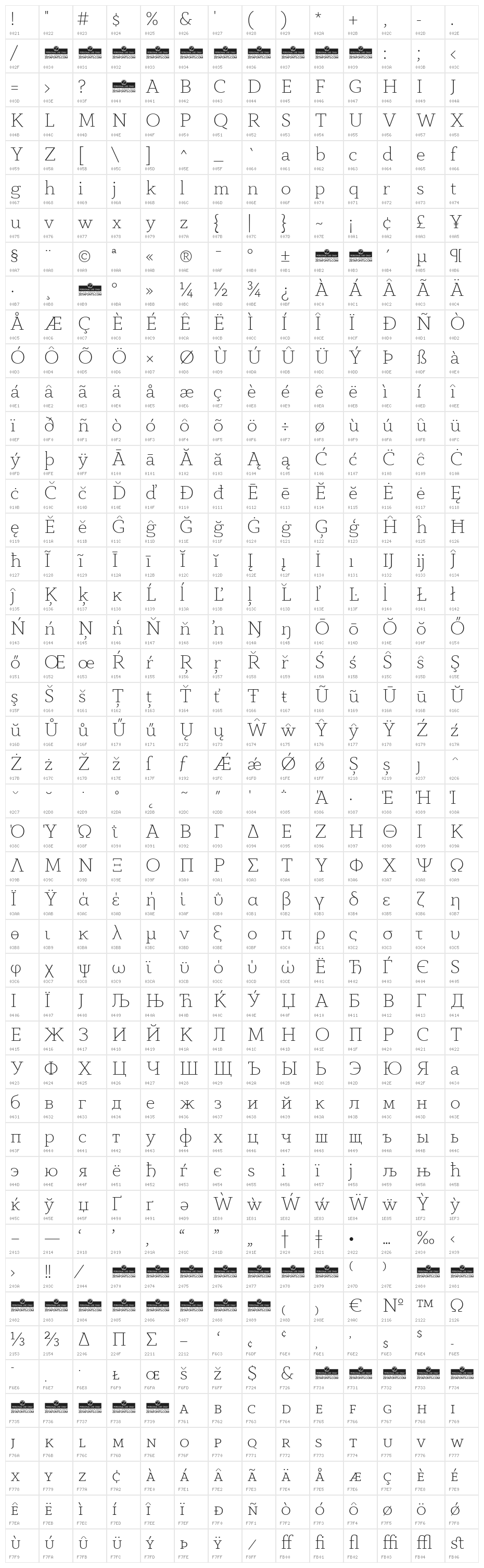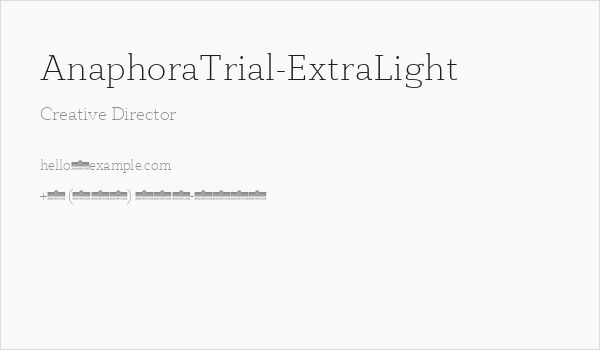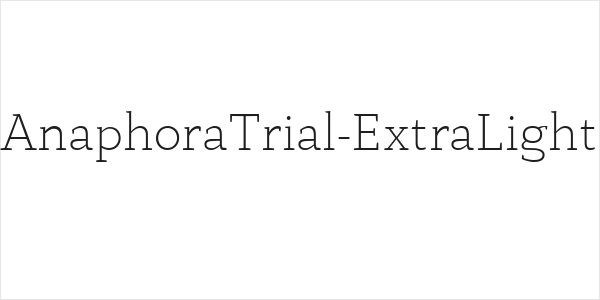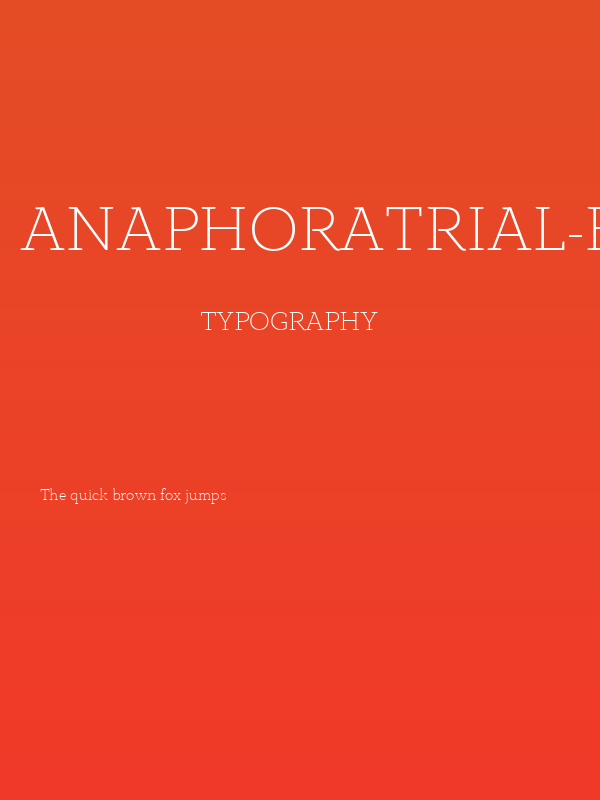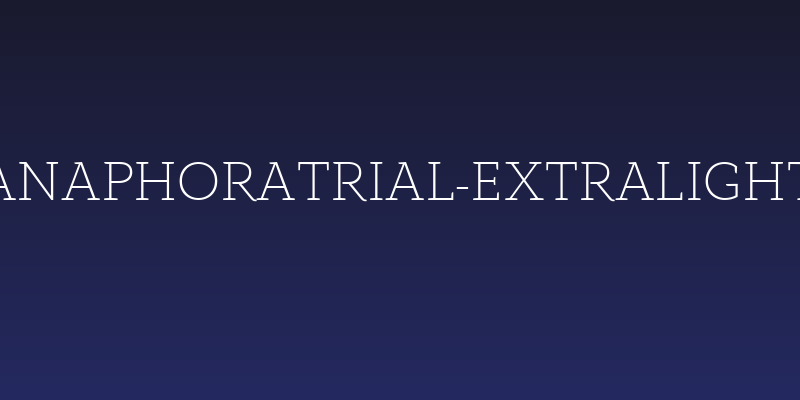
AnaphoraTrial-ExtraLight Font
AnaphoraTrial-ExtraLight Description
This font exhibits a refined and elegant style, characterized by its thin and delicate strokes. The uppercase and lowercase letters maintain a consistent and harmonious design, with a slight contrast in stroke thickness that adds a touch of sophistication. The characters are well-proportioned, offering a clean and modern appearance. The numerals and special characters are designed to complement the alphabet, ensuring readability and aesthetic appeal. This font's extra light weight makes it ideal for projects that require a subtle and understated look, while still maintaining clarity and elegance.
| Proposed Projects | Ideal for wedding invitations, luxury branding, high-end product packaging, and editorial design. |